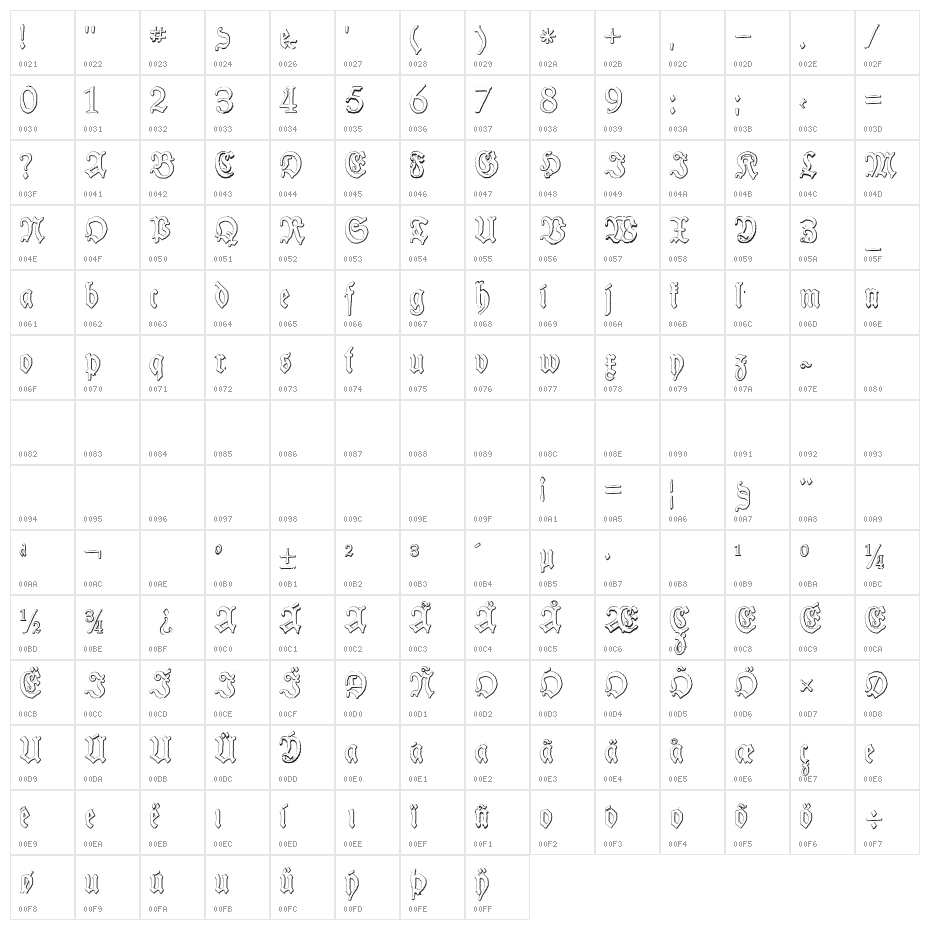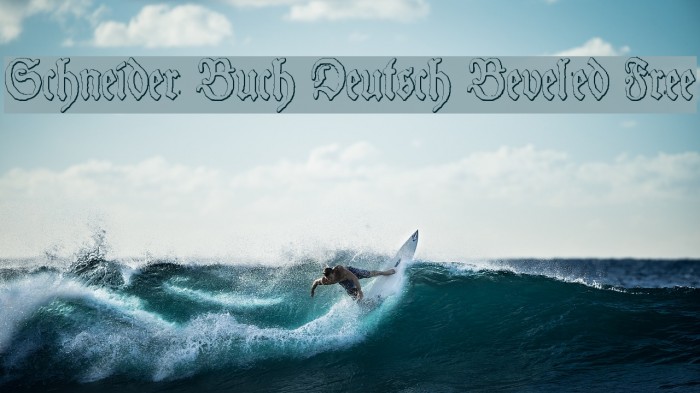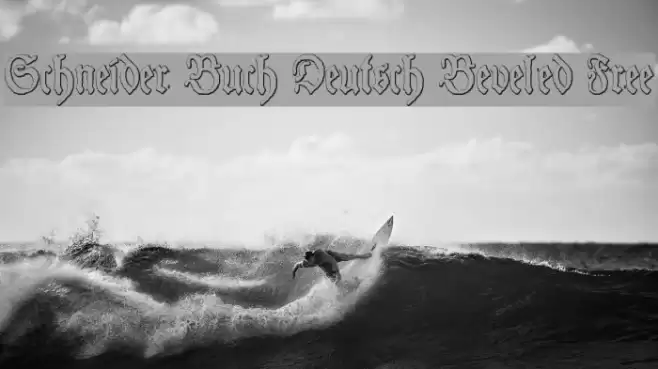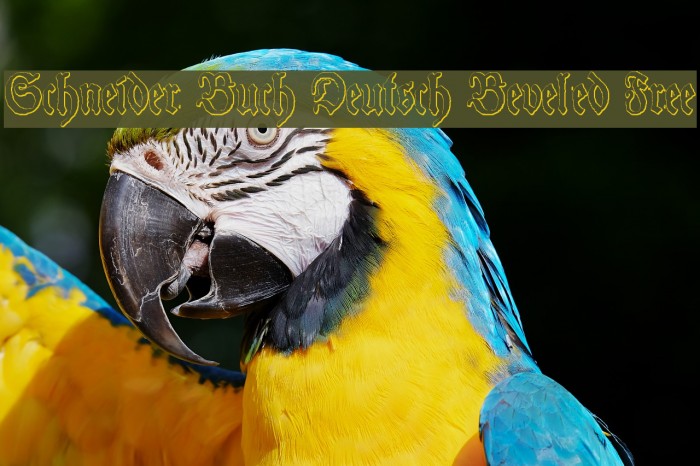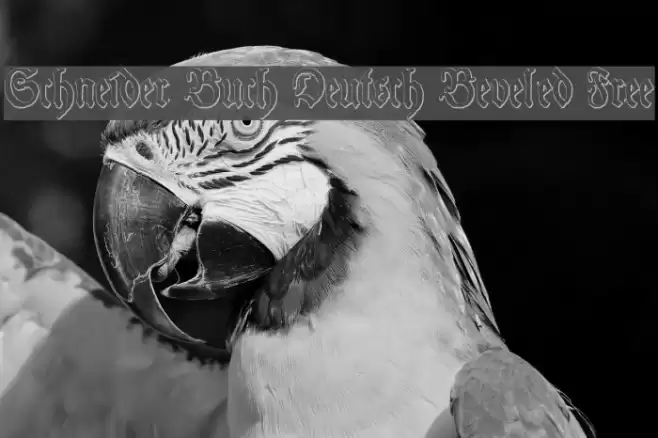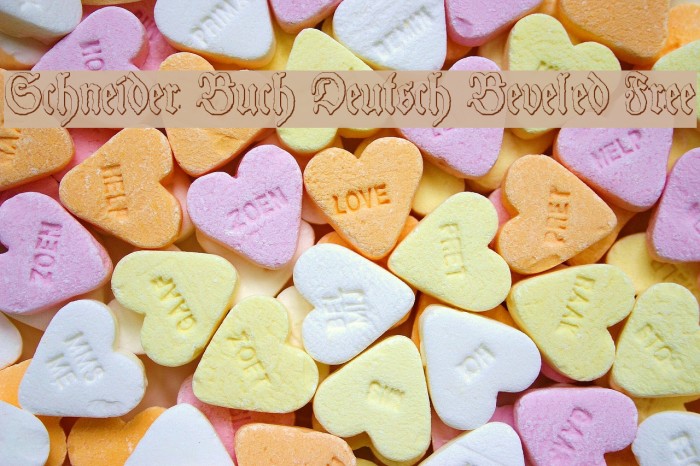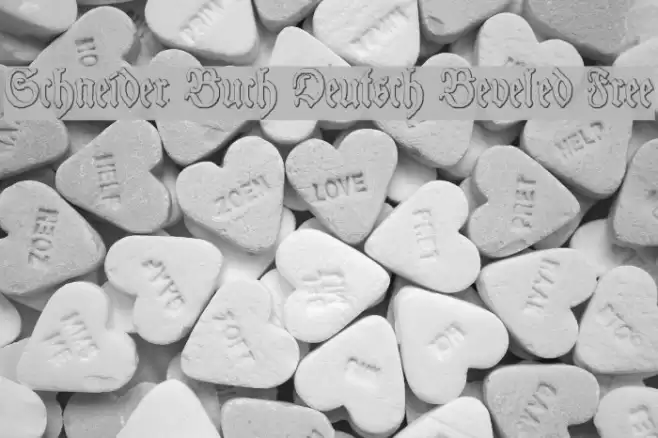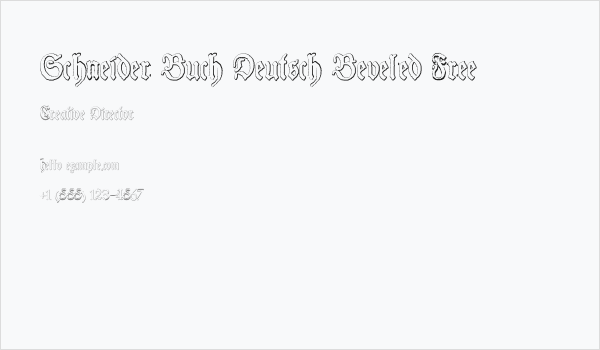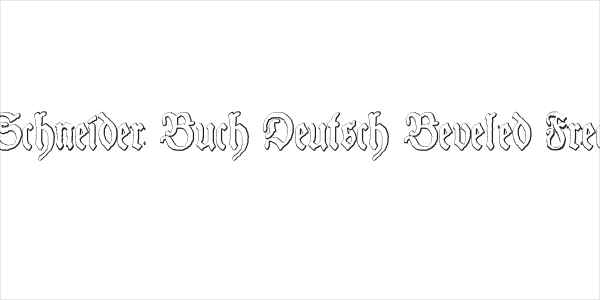
Schneider Buch Deutsch Beveled Free Font
Schneider Buch Deutsch Beveled Free Description
This font features a distinct beveled style with intricate, ornate details reminiscent of traditional German blackletter typography. The uppercase letters are bold and commanding, with sharp edges and decorative flourishes that give them a historical and authoritative presence. The lowercase letters maintain the same decorative style, offering a cohesive look throughout. Numbers and special characters are equally stylized, ensuring consistency across all text elements. The font's unique beveled effect adds depth and dimension, making it stand out in any design. Its historical and decorative nature makes it ideal for projects that require a touch of elegance and tradition.
| Proposed Projects | Ideal for certificates, historical documents, book covers, and branding that requires a traditional and elegant touch. |